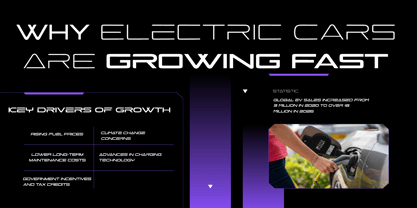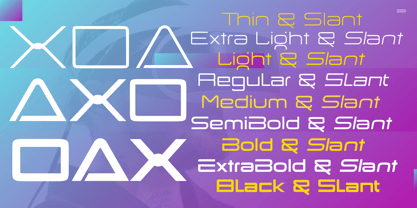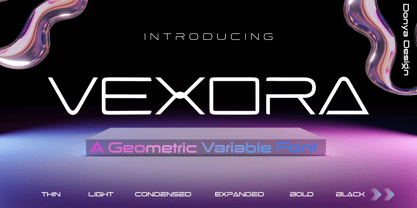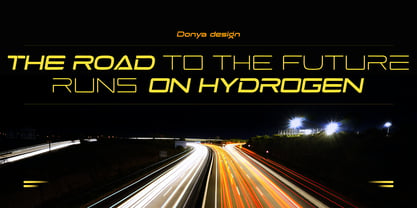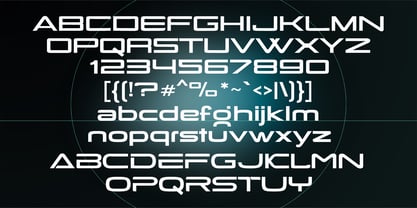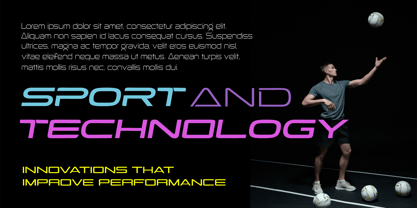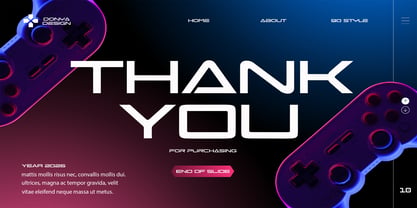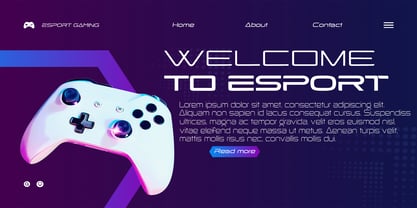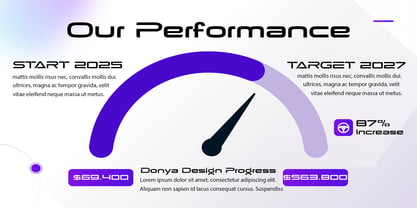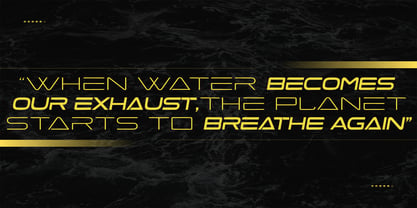
Vexora Variable
The Vexora Variable Font Family was designed by Teuku Muslyawan and published by DonyaDesign. Vexora Variable contains 91 styles and family package options. More about this family
Vexora is a modern, futuristic sci-fi font crafted for creators who desire a bold digital aesthetic and cutting-edge visual impact. Drawing inspiration from cyberpunk culture, advanced tech interfaces, robotics, and futuristic gaming environments, this font features sharp geometric constructions paired with a sleek, contemporary style. With its clean lines, robust structure, and high-tech personality, Vexora delivers a powerful futuristic vibe that enhances your designs. This font excels in both digital and print applications, making it perfect for projects that demand innovation, speed, and modern energy. Whether you're developing esports branding, sci-fi movie titles, tech campaigns, game graphics, or futuristic UI concepts, Vexora provides your typography with a striking and professional futuristic identity.